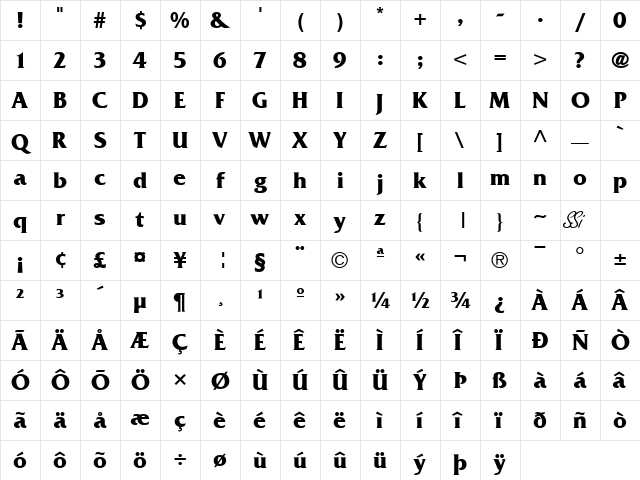
Muster SSi Bold
Muster SSi Family
Muster SSi Bold
Design Context for Muster SSi
Muster SSi is a composed and adaptable typeface that performs quietly and consistently across a wide range of design contexts. Its bold stroke weight gives it real presence on the page.